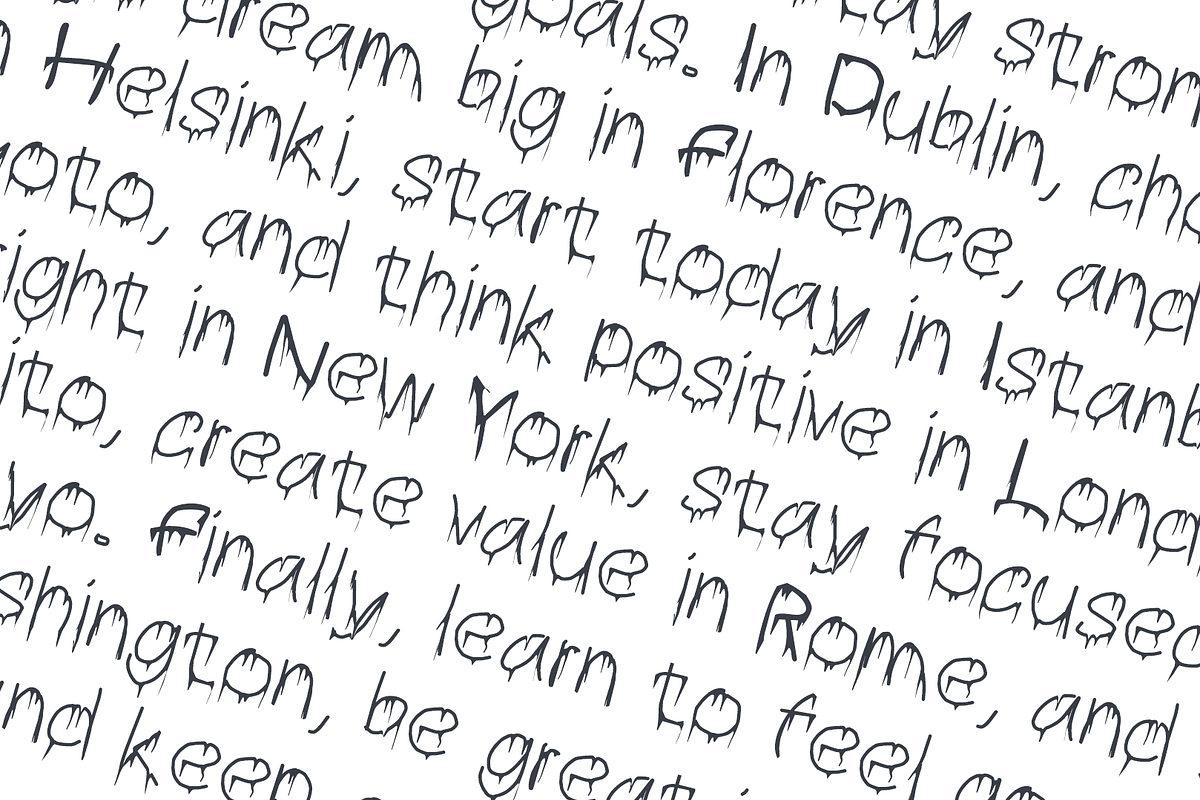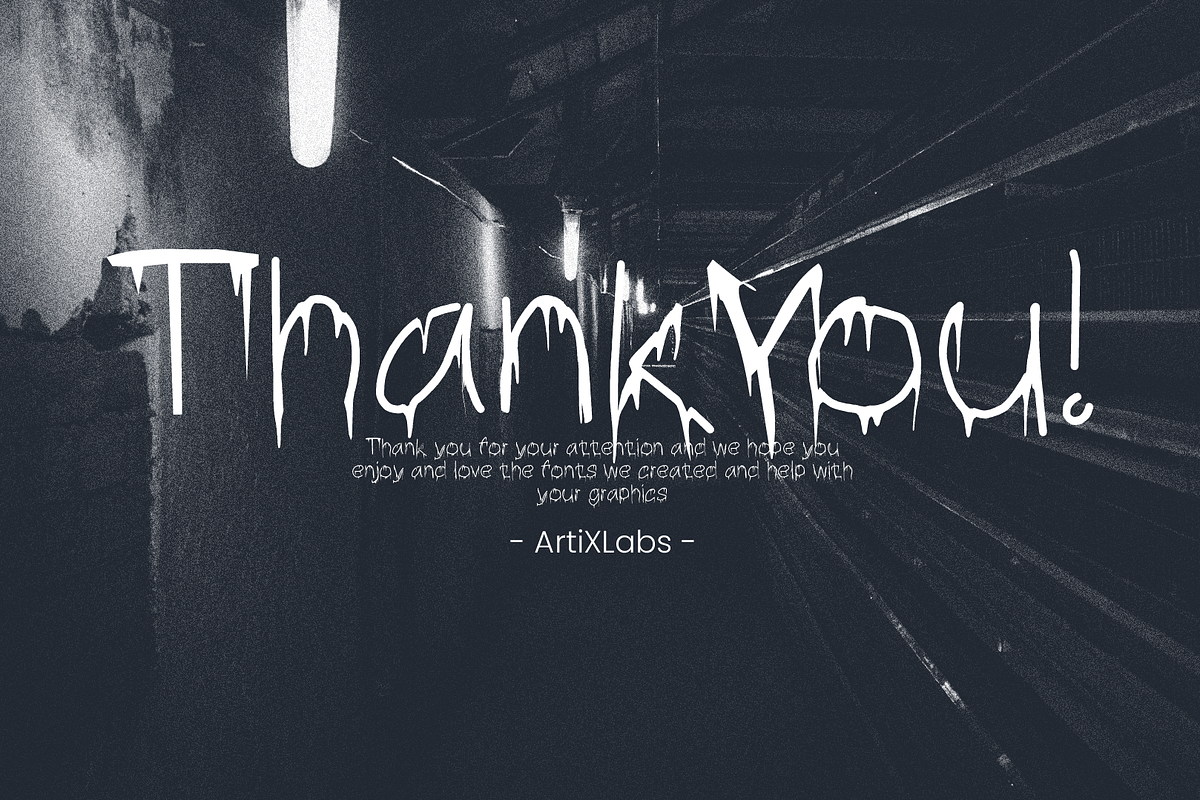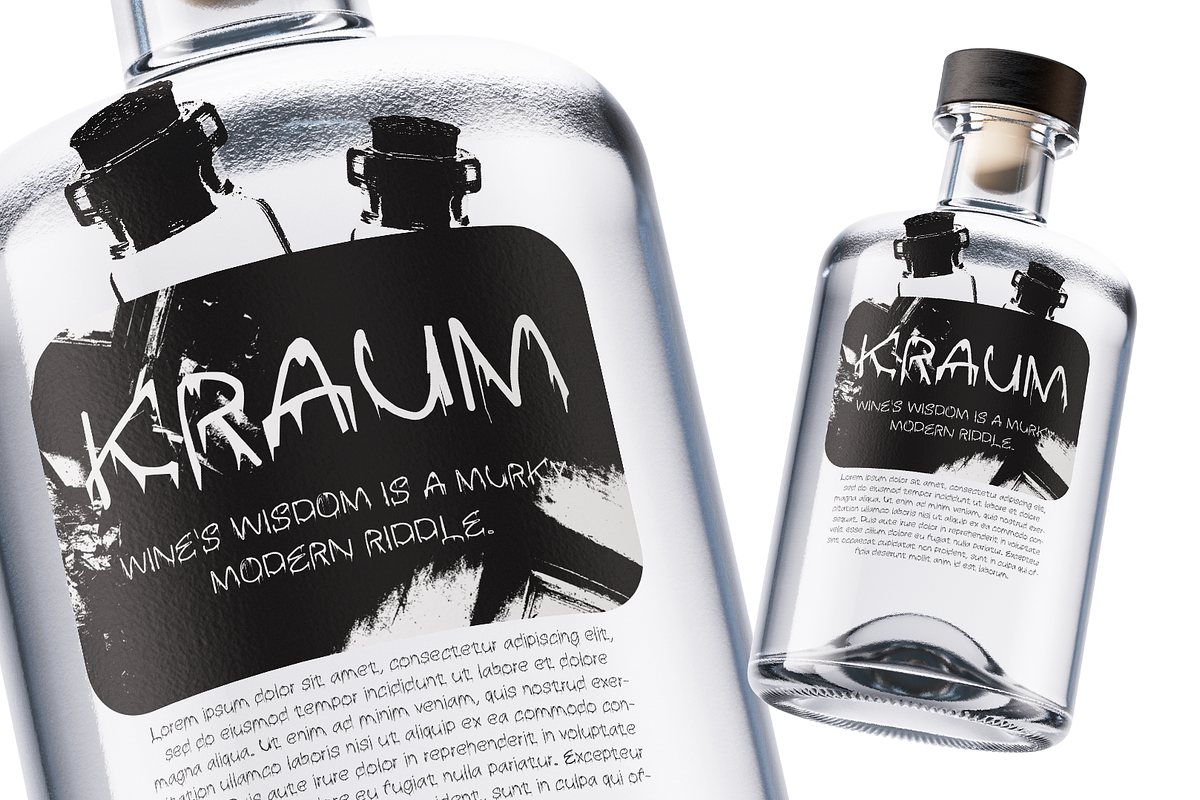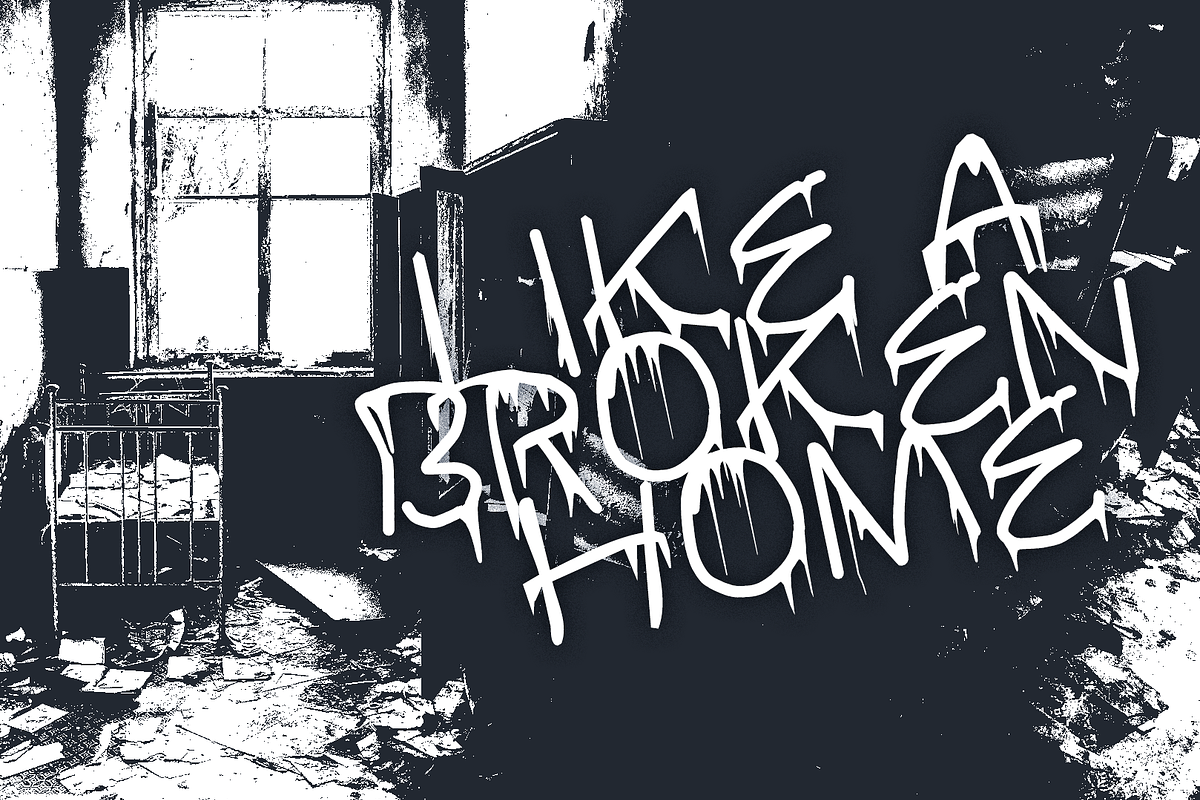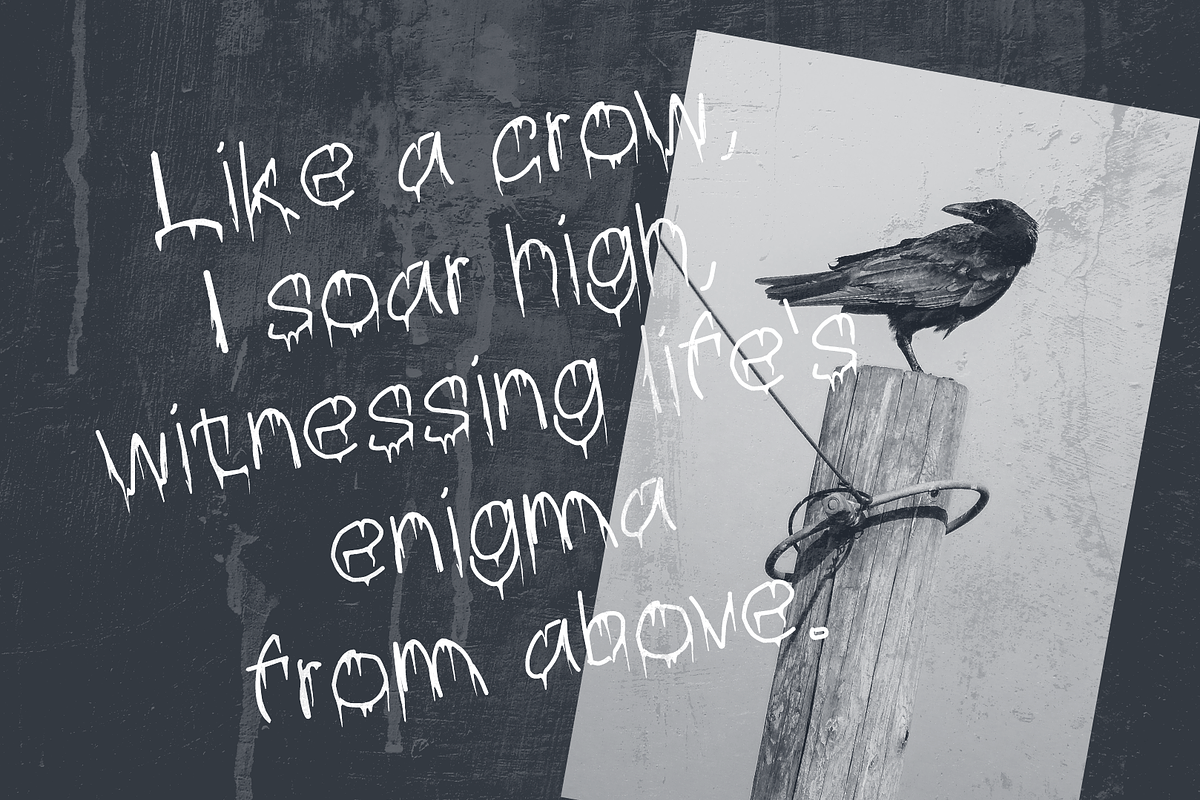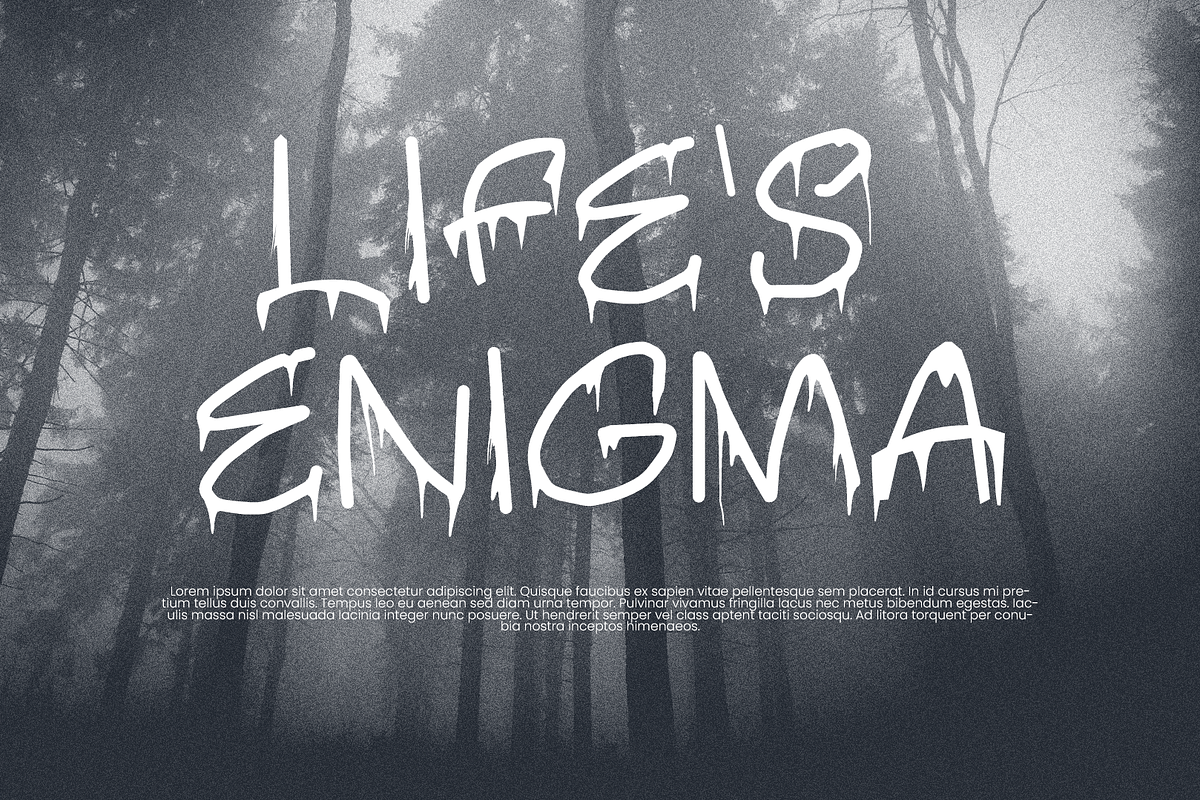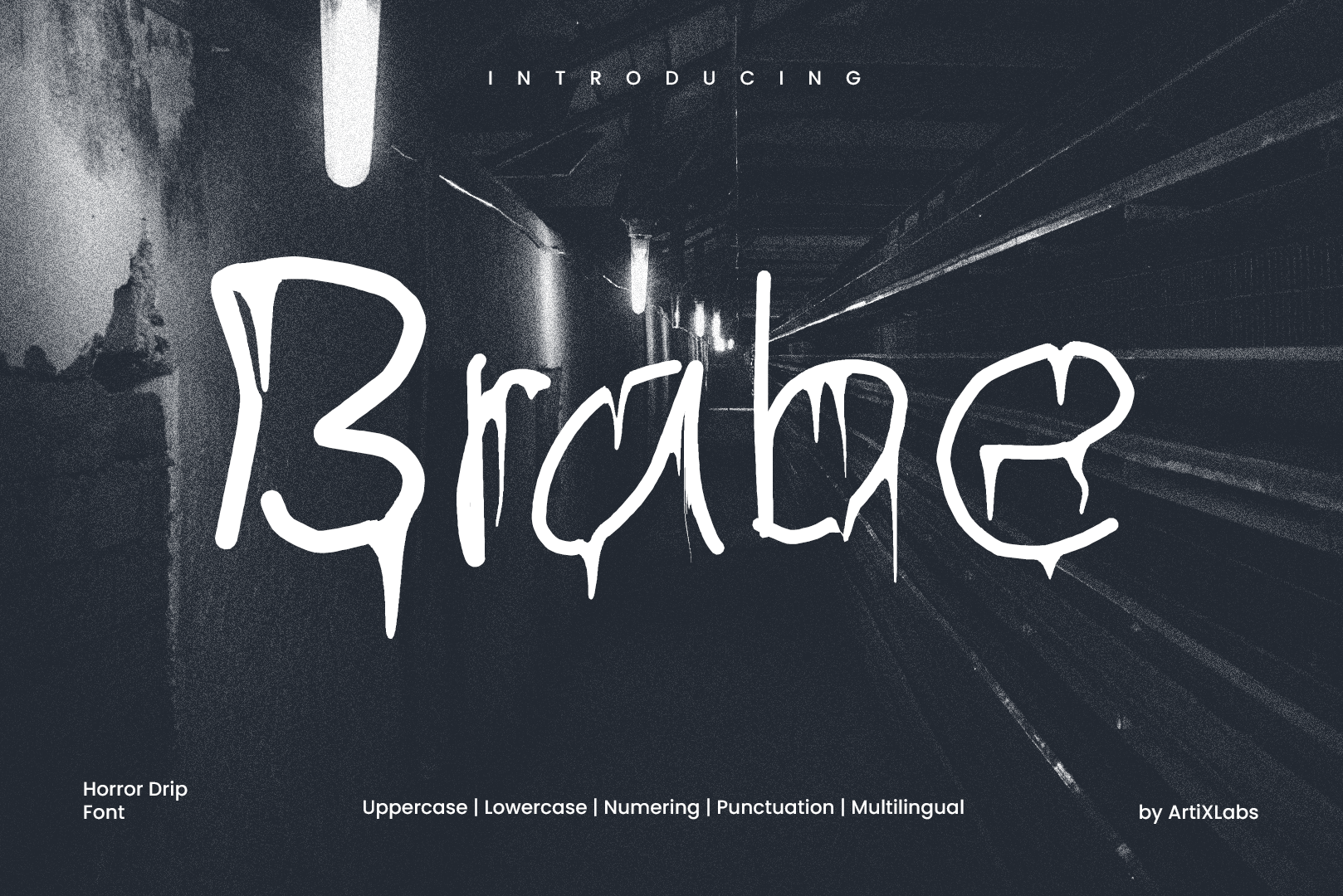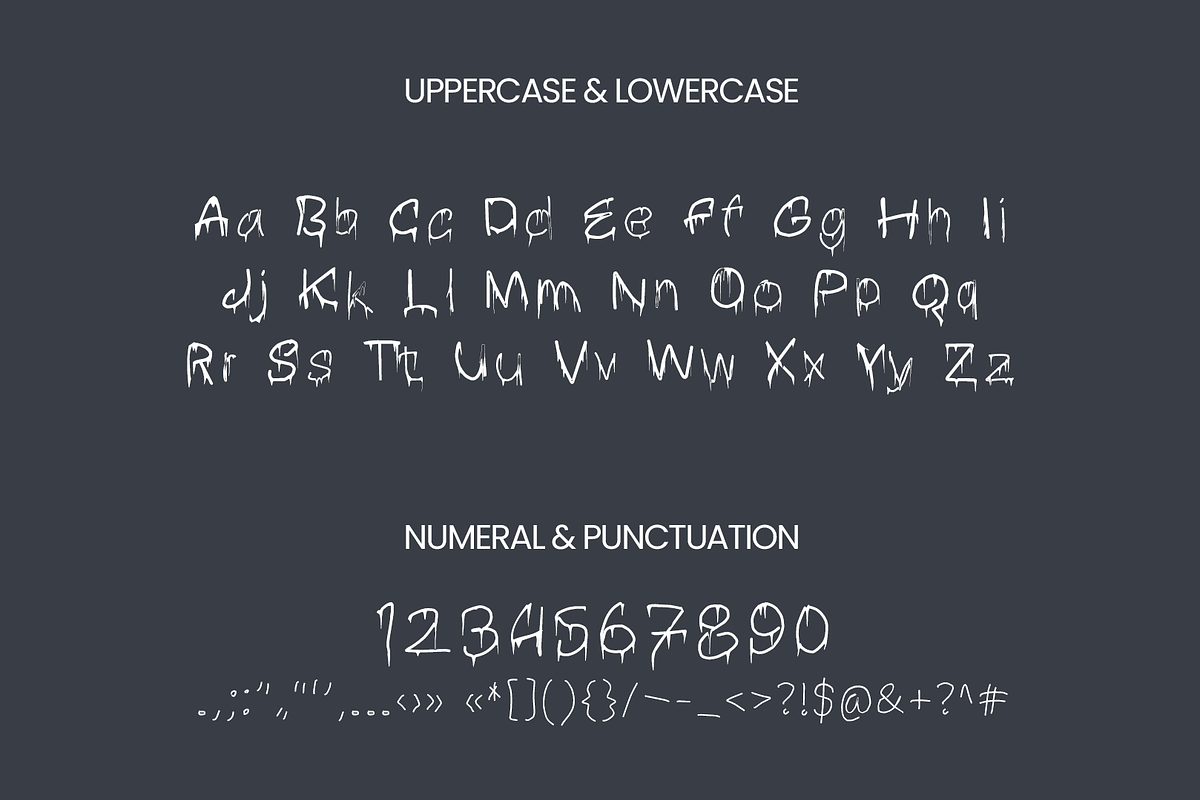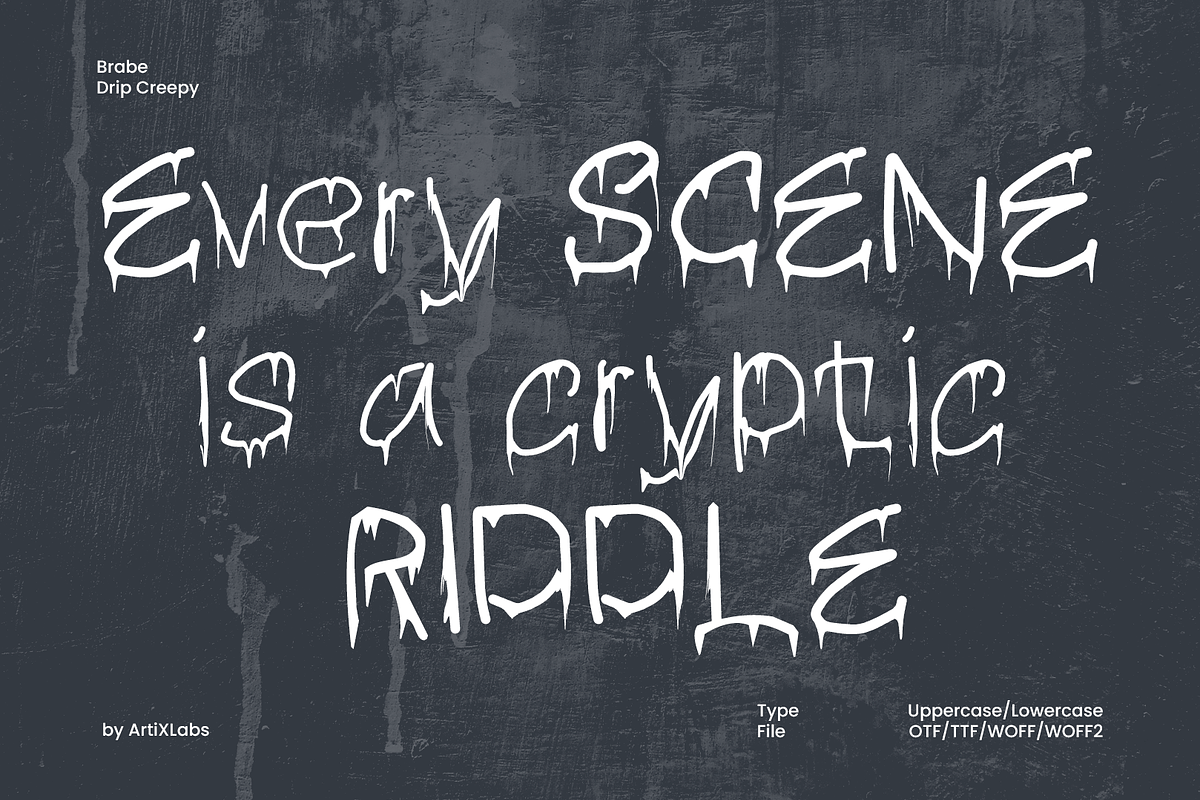
Brabe Creepy Drip Horror Font
Introducing Brabe - Horror Creepy Drip Font
This Font Template contains Urban, Dark, Horror, Expressive, Creative, Professional and Unique Concept.
- Uppercase & Lowercase letters